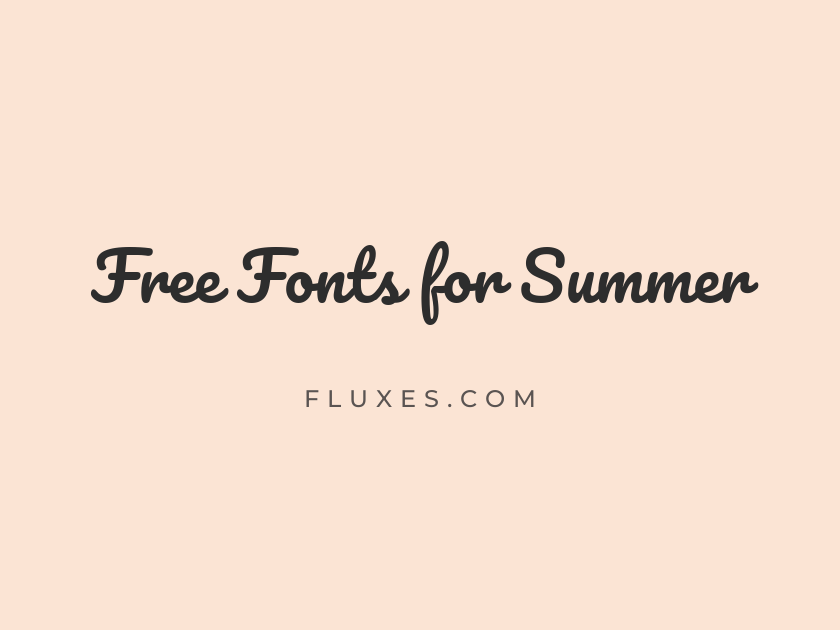
68 Best Free Fonts for Summer
Summer design work lives or dies on mood: the loose, sun-bleached feel of a beach postcard, the neon buzz of a boardwalk sign, the sticky sweetness of an ice cream shop menu. Finding free fonts for summer projects that capture that range, without resorting to paid libraries, is easier than most designers assume once you know where to look on Google Fonts. This roundup pulls together scripts, hand-lettered faces, bold display type, and clean rounded sans serifs that all read as warm-weather, whether you are building a beach brand, a festival flyer, a travel blog, or a seasonal sale banner.
1. Pacifico
Born from 1950s California surf culture, Pacifico still carries that laid-back boardwalk swagger in every loop. It works hard as a logotype for beach shops, smoothie brands, and anything that wants to feel sun-warmed rather than corporate.
2. Sacramento
A dainty, tightly-spaced script that suits summer wedding stationery and delicate postcard lettering more than loud signage.
3. Alex Brush
This is a proper calligraphic brush script, elegant enough for a summer soirée invitation but with enough movement to avoid feeling stiff.
4. Dancing Script
Bouncy and warm, Dancing Script has become a go-to for restaurant and cocktail menus because it reads as friendly rather than fussy. The bold weight in particular holds up nicely on drink boards and packaging labels.
5. Kaushan Script
Marker-style and energetic, this script suits festival branding and beach event posters where you want motion without formality.
6. Great Vibes
A single elegant weight of formal script, best saved for wedding suites, invitations, and monogram-style headers rather than body copy.
7. Courgette
Rounded and cheerful, Courgette leans friendlier and less bridal than most scripts on this list, making it a natural fit for ice cream shop signage.
8. Yellowtail
Yellowtail echoes hand-painted surfboard lettering from decades past, all confident curves and retro attitude.
9. Marck Script
A warmer, more casual handwriting script than most, Marck Script feels like a note scrawled on the back of a photograph.
10. Berkshire Swash
Swash capitals give this display serif a decorative, stamp-like quality that suits short titles far better than paragraphs.
11. Caveat
Caveat reads like genuine handwriting rather than a designed script, which makes it ideal for travel journals, sticky-note graphics, and casual blog headers.
12. Permanent Marker
Bold and blunt, this one mimics a fat felt-tip marker on cardboard. It is perfect for beach shack signage, pool party flyers, or anywhere you want type to shout in a friendly way rather than a corporate one.
13. Shadows Into Light
Light and airy, this handwriting style suits casual blog pull quotes and diary-style captions better than anything commercial.
14. Homemade Apple
Delicate and slightly wobbly, Homemade Apple looks like a diary entry, which makes it a nice choice for intimate, personal-feeling captions.
15. Indie Flower
Rounded, bubbly, and unpretentious, this is a longtime favorite for kids’ summer camp flyers and playful packaging.
16. Gochi Hand
A skinnier marker-style handwriting font with a slightly younger, doodle-like energy than most on this list.
17. Reenie Beanie
Loose and scrawled, Reenie Beanie works best as an accent font rather than a primary headline face; use it sparingly for captions or margin notes.
18. Patrick Hand
Cleaner and more legible than most handwriting fonts, Patrick Hand can actually carry small amounts of body text on a menu or flyer without turning muddy.
19. Nanum Pen Script
A flowing pen script with Korean roots, useful when a project wants handwriting that feels a touch more international than the usual American diner scrawl.
20. Architects Daughter
Sketch-like and slightly imperfect, this suits DIY summer craft projects, camp worksheets, and anything wanting a homemade feel.
21. Handlee